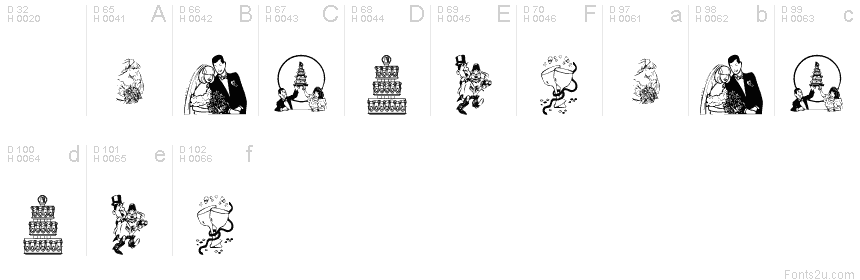
KR Wedding
KR Wedding by Kat Rakos is a free wedding dingbats font built around playful cartoon ceremony imagery. The set leans into a light, storybook mood, with a dancing bride and groom, a tiered cake, and bold black outlines that keep the drawings lively rather than fussy.
It fits naturally in wedding invitations, shower games, scrapbook pages, favor tags, and quick signage where a free font can supply instant themed ornament without looking stiff. Use it for title cards, little divider moments, menu accents, or short handmade headlines when you want the graphics themselves to carry the celebration.